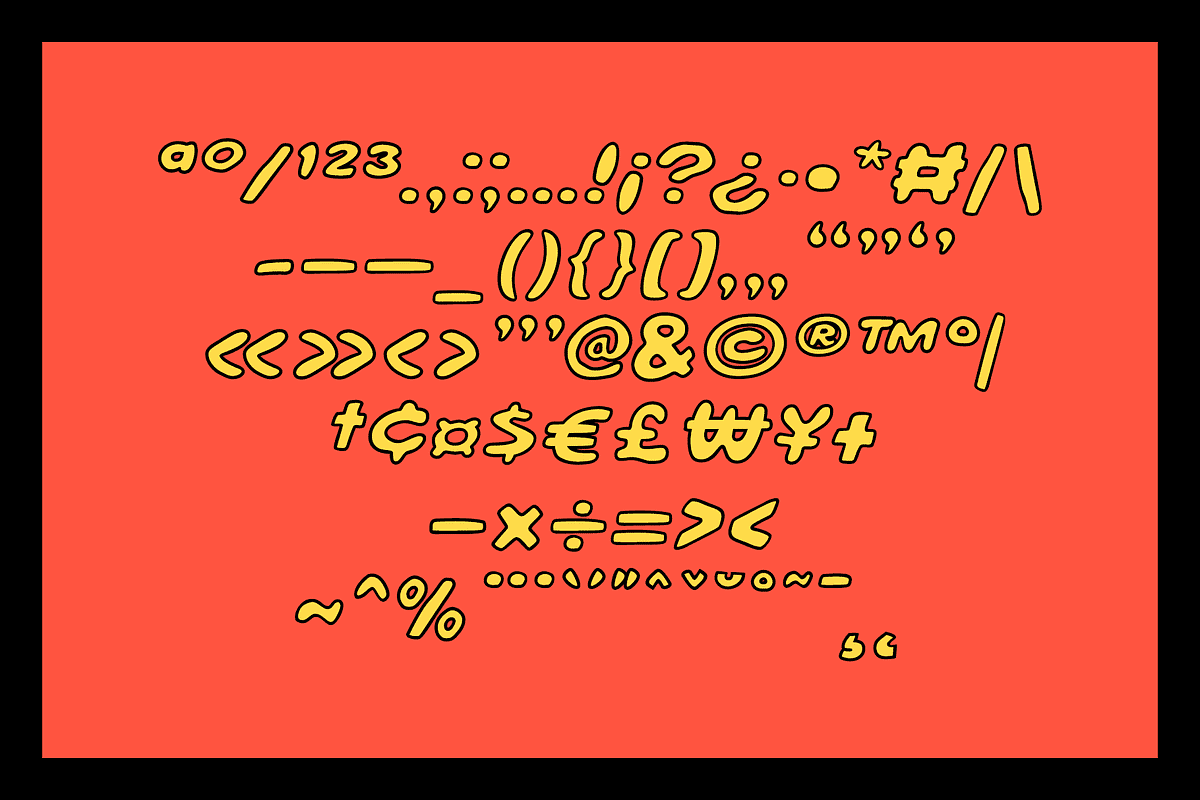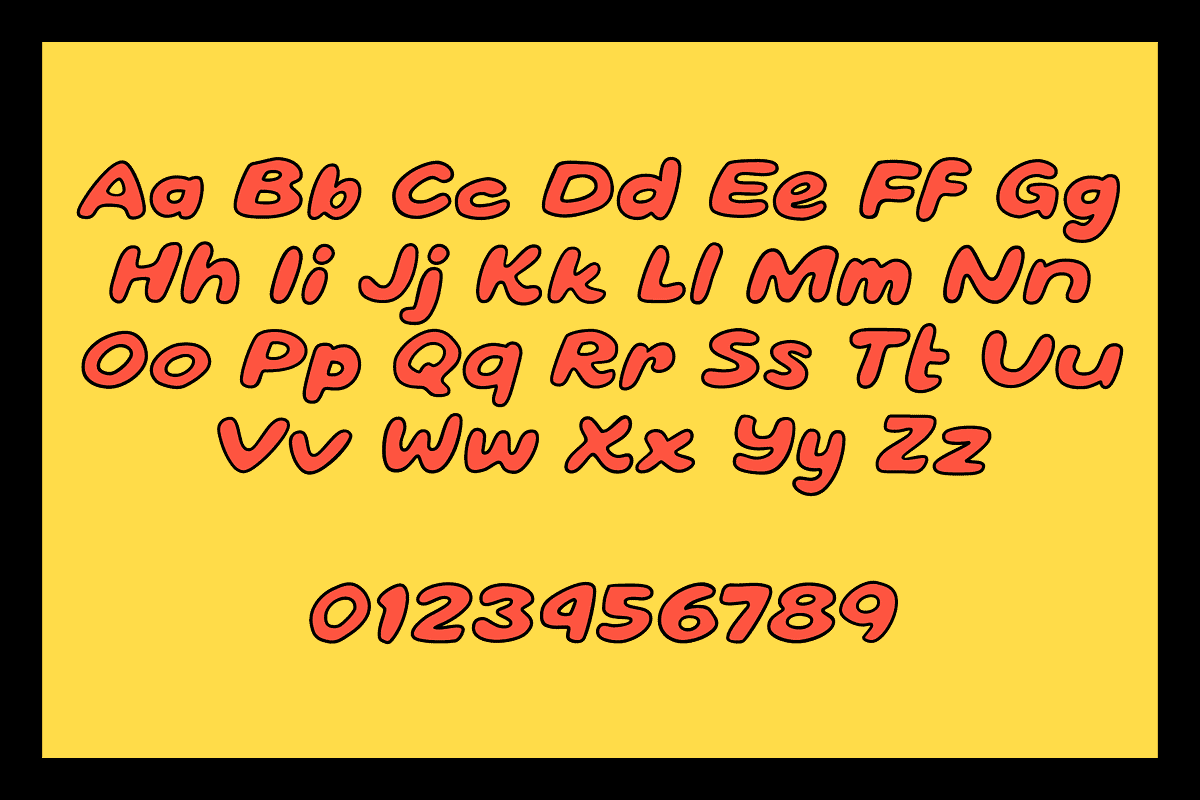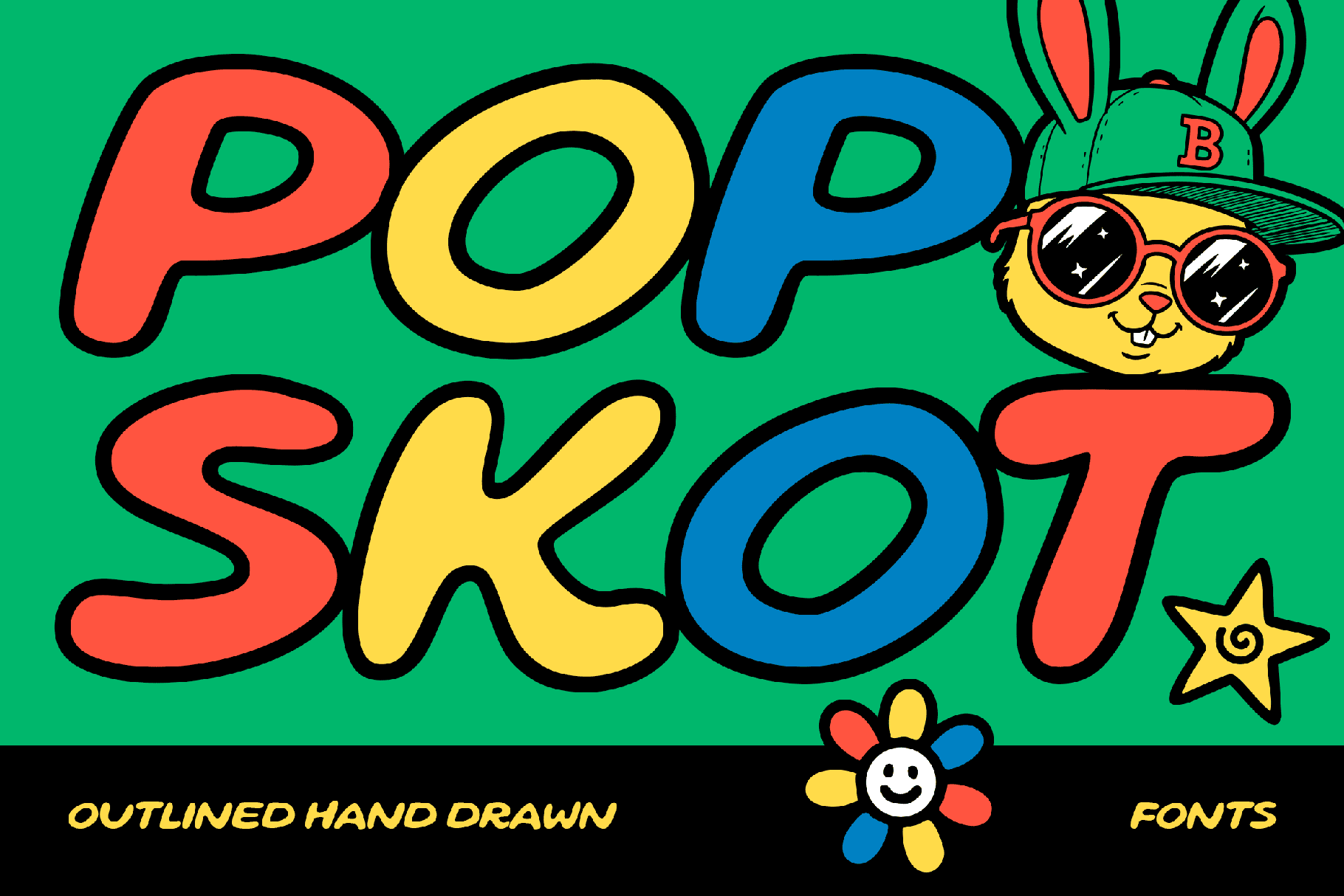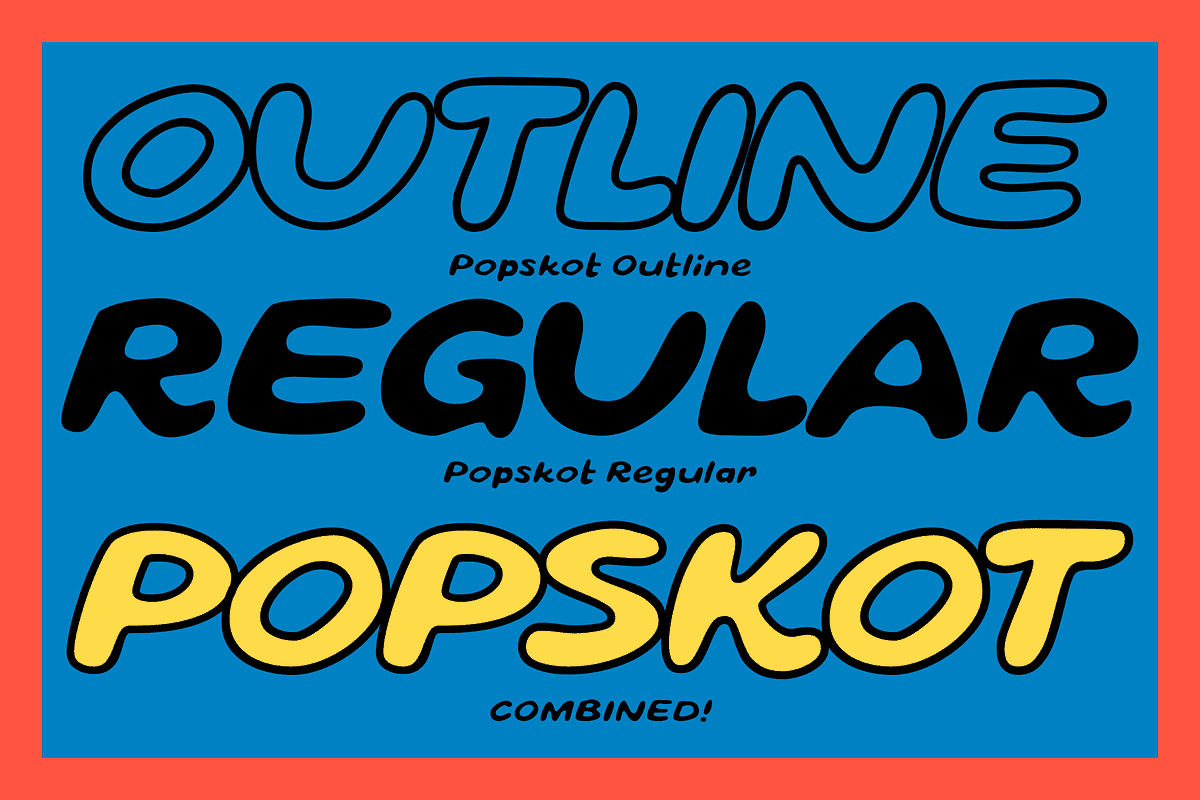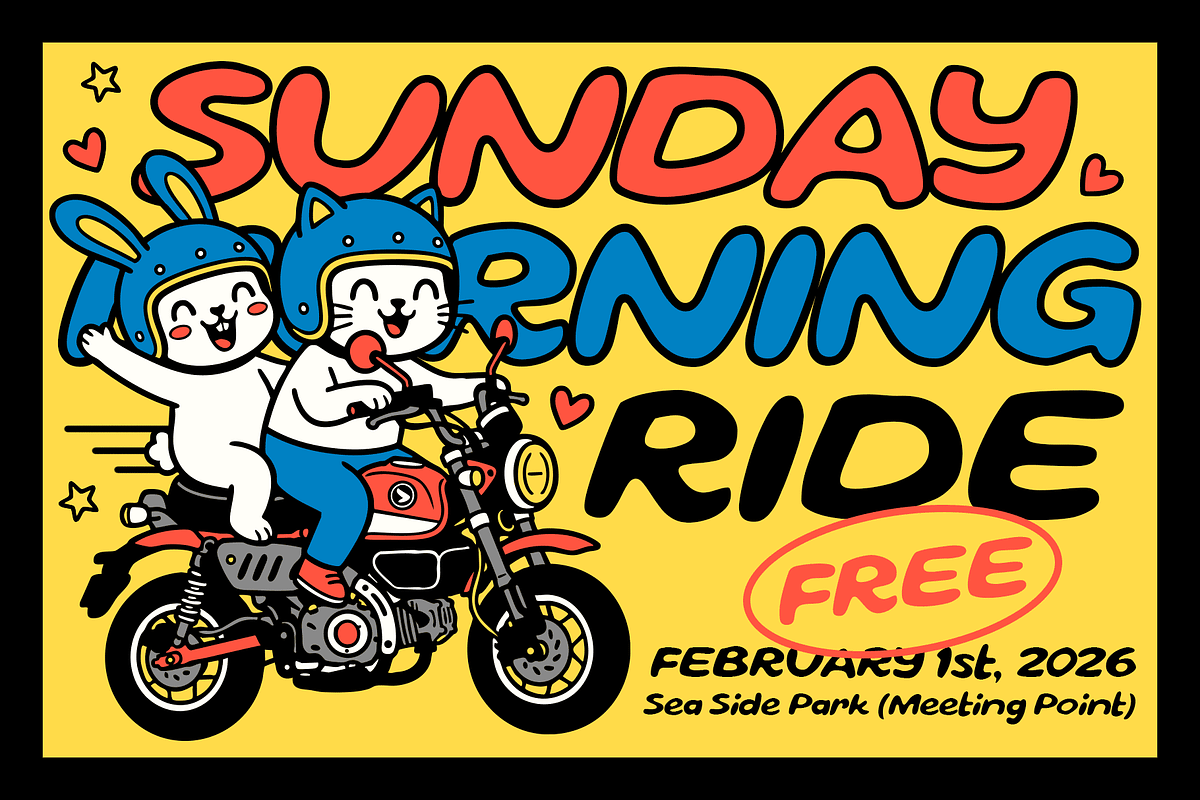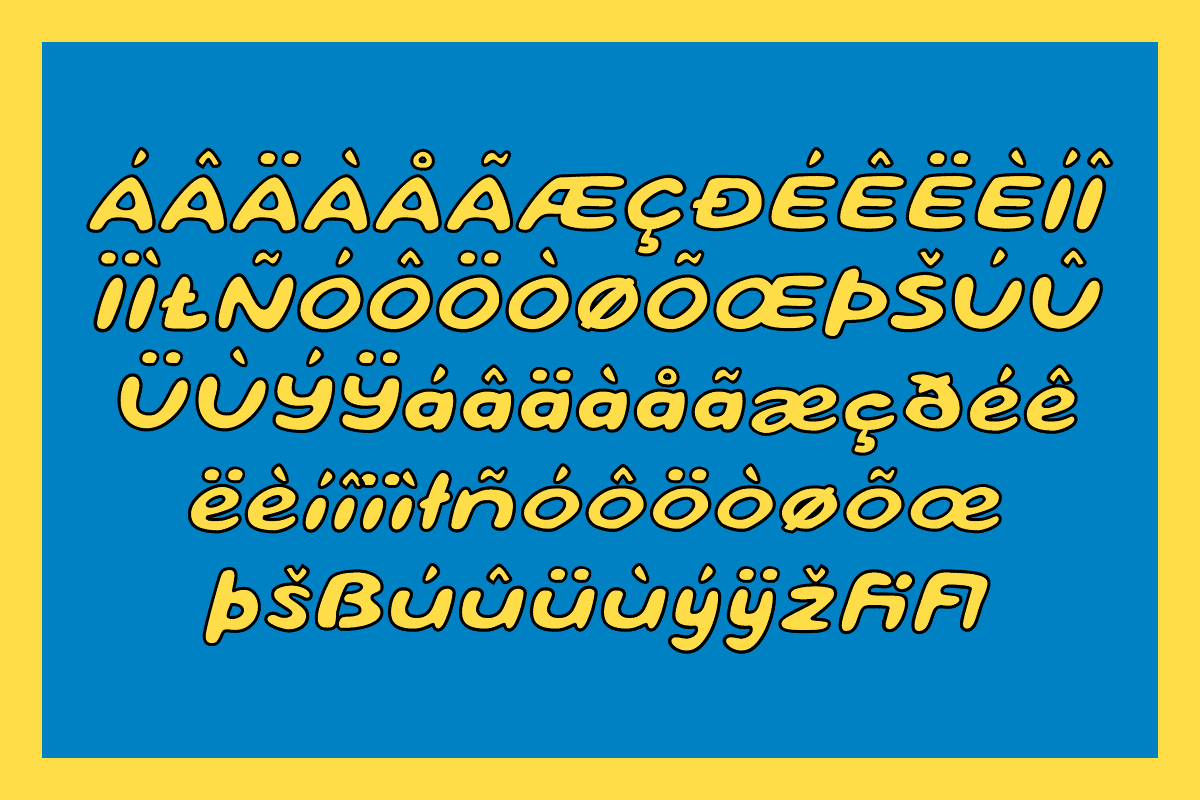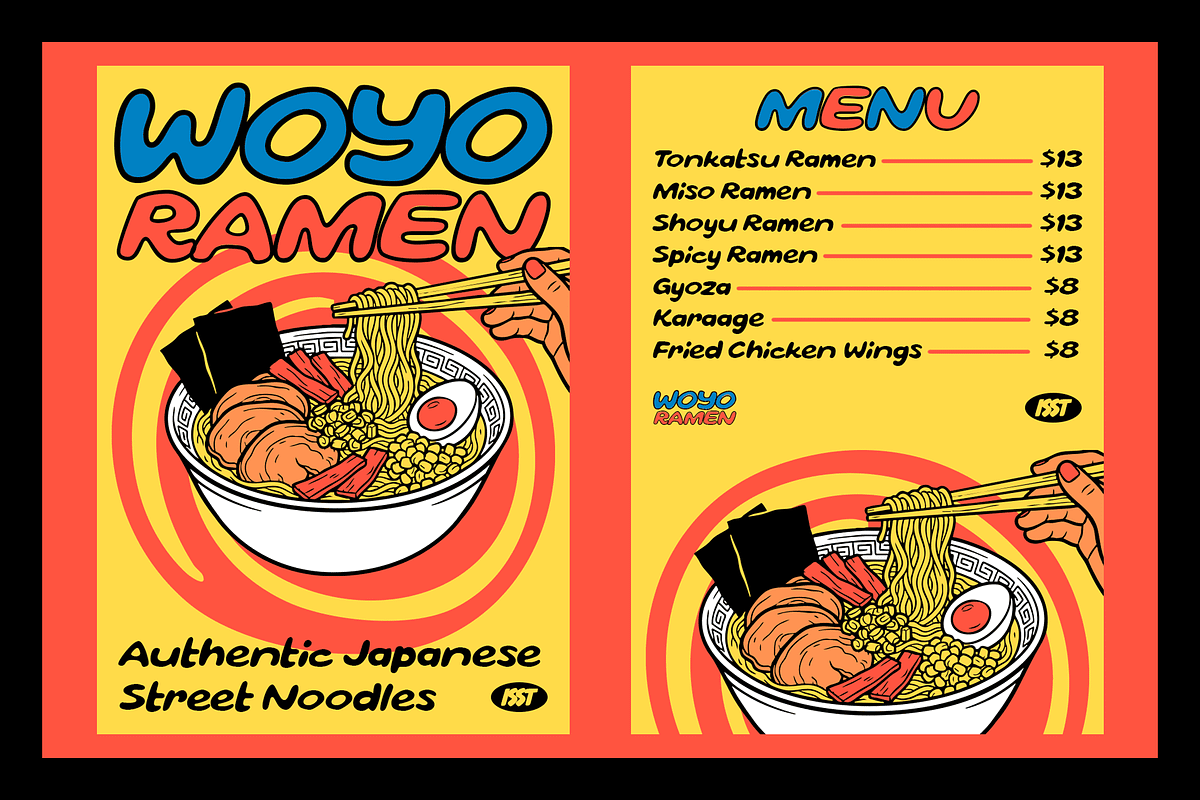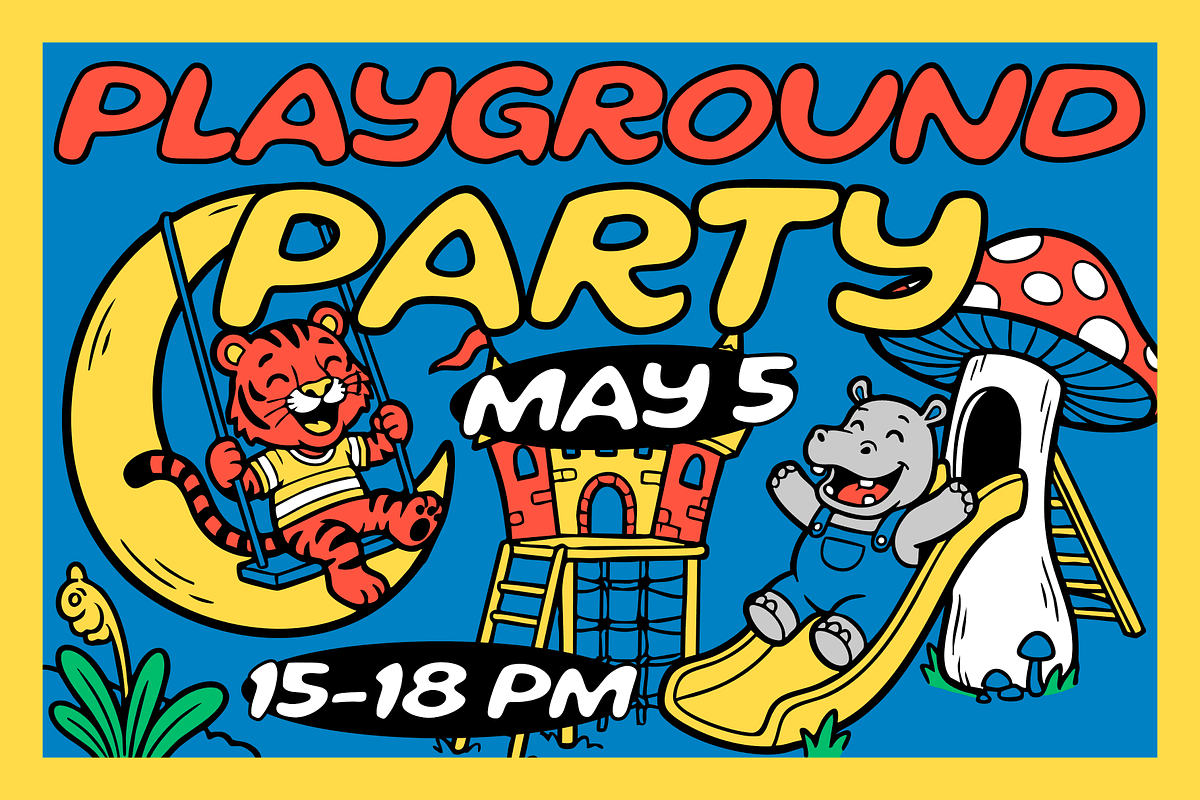
Popskot - Outline Bold Fonts
Why settle for "nice" when you can have loud?
Popskot is a hand-drawn powerhouse designed for creators who aren't afraid to take up space. Inspired by the bold, bouncy aesthetics of street pop-art and retro cartooning, this duo-font system is built to make your headlines jump off the screen (and the shelf).
The Magic is in the Stack Popskot isn't just one font—it’s a tactical design system. You get two distinct styles:
Popskot Regular: A thick, juicy, solid weight that commands attention.
Popskot Outline: A perfectly calibrated stroke that wraps around the regular weight like a custom-tailored suit.
The Pro Move: Layer them together. By stacking the Outline over the Regular, you unlock that iconic, multi-colored "sticker" look instantly—no complex Illustrator effects required.
Brand Identities: Give your logo that "handcrafted but professional" edge.
Event Posters: Whether it’s a gig, a gallery opening, or a pop-up market.
Social Content: Thumbnails and headlines that stop the scroll in mid-swipe.
Packaging: Ideal for snacks, craft sodas, and products that need to look tasty.
Merch & Apparel: It’s practically screaming to be printed on a heavyweight hoodie.